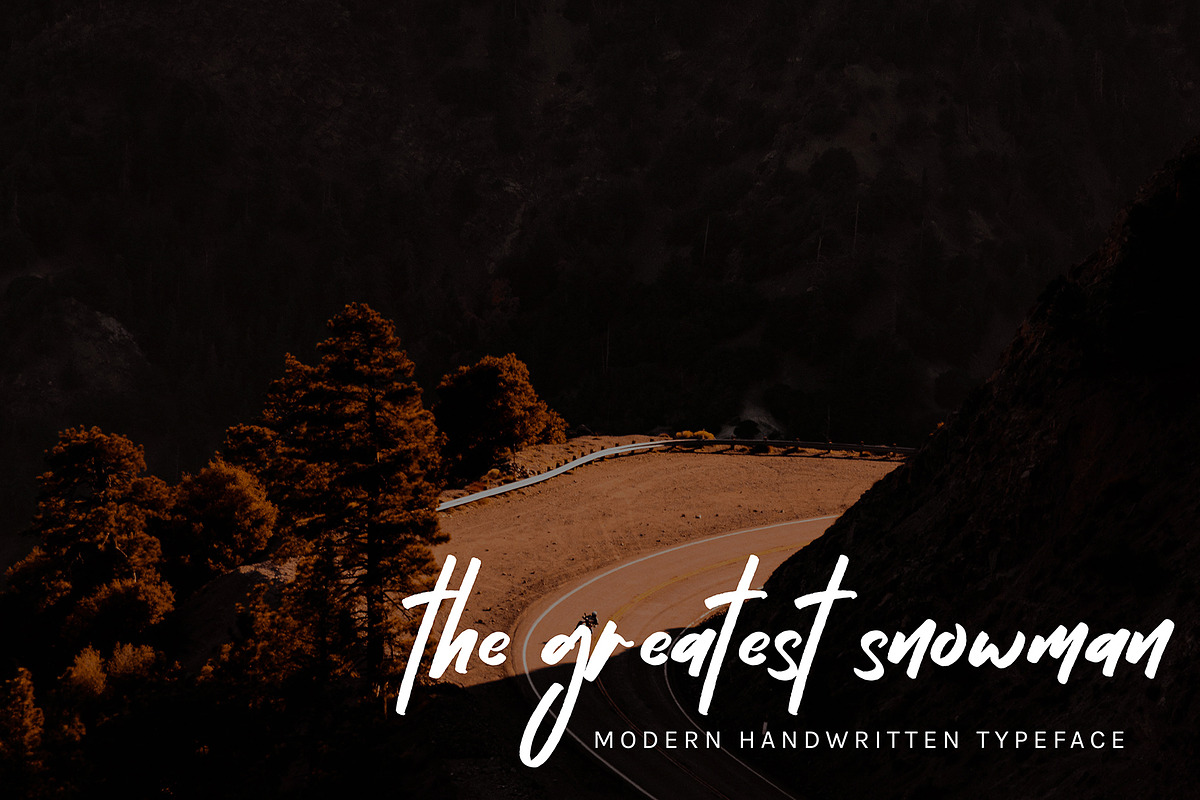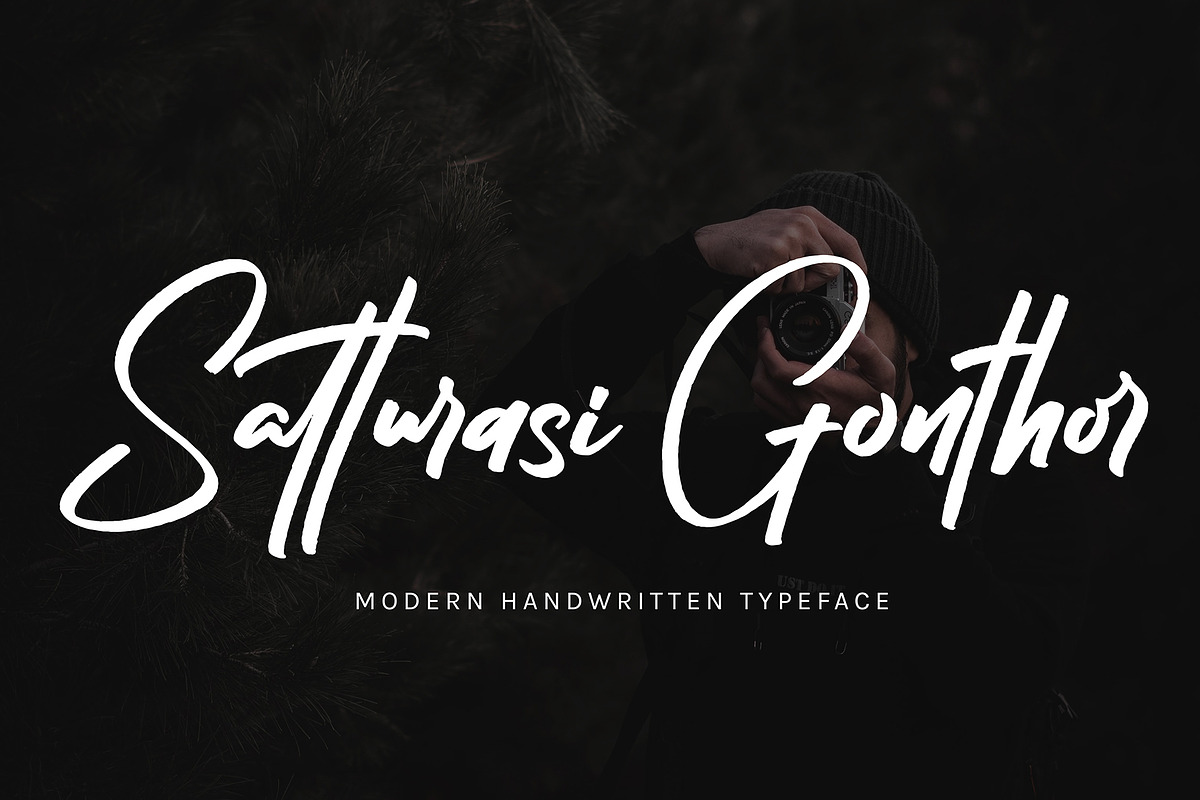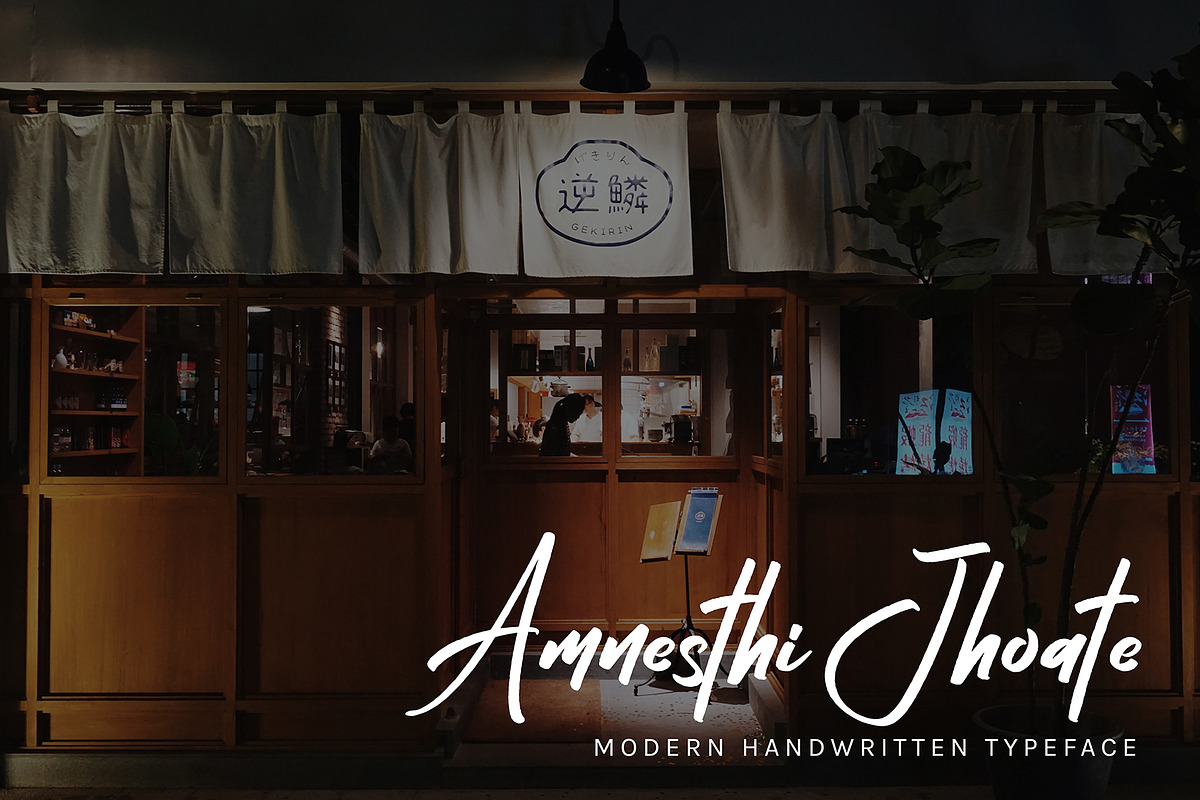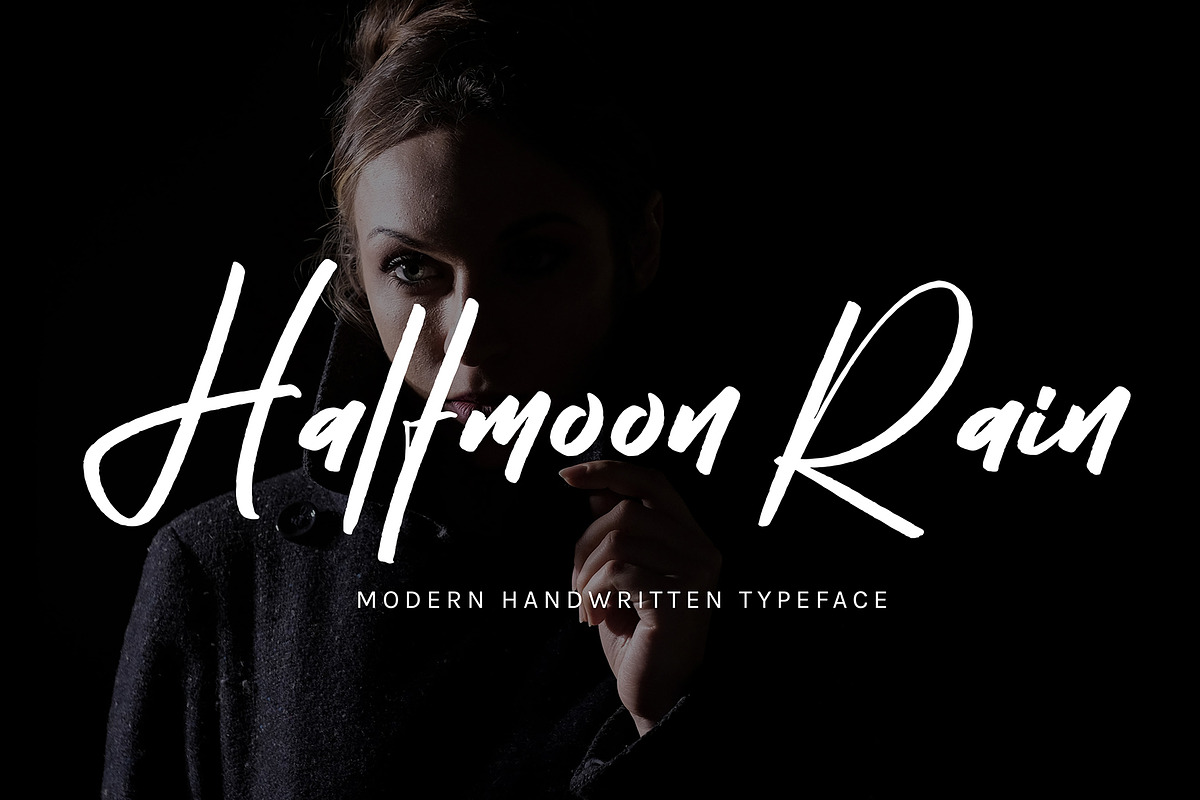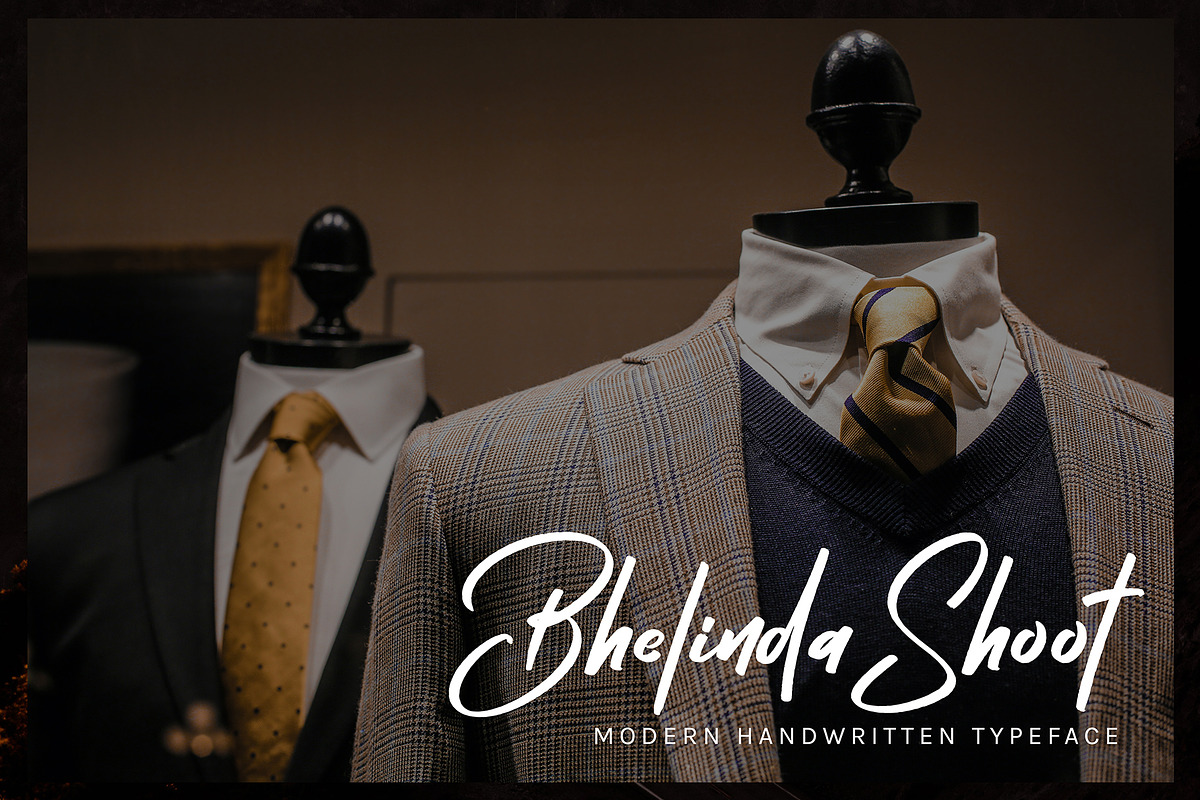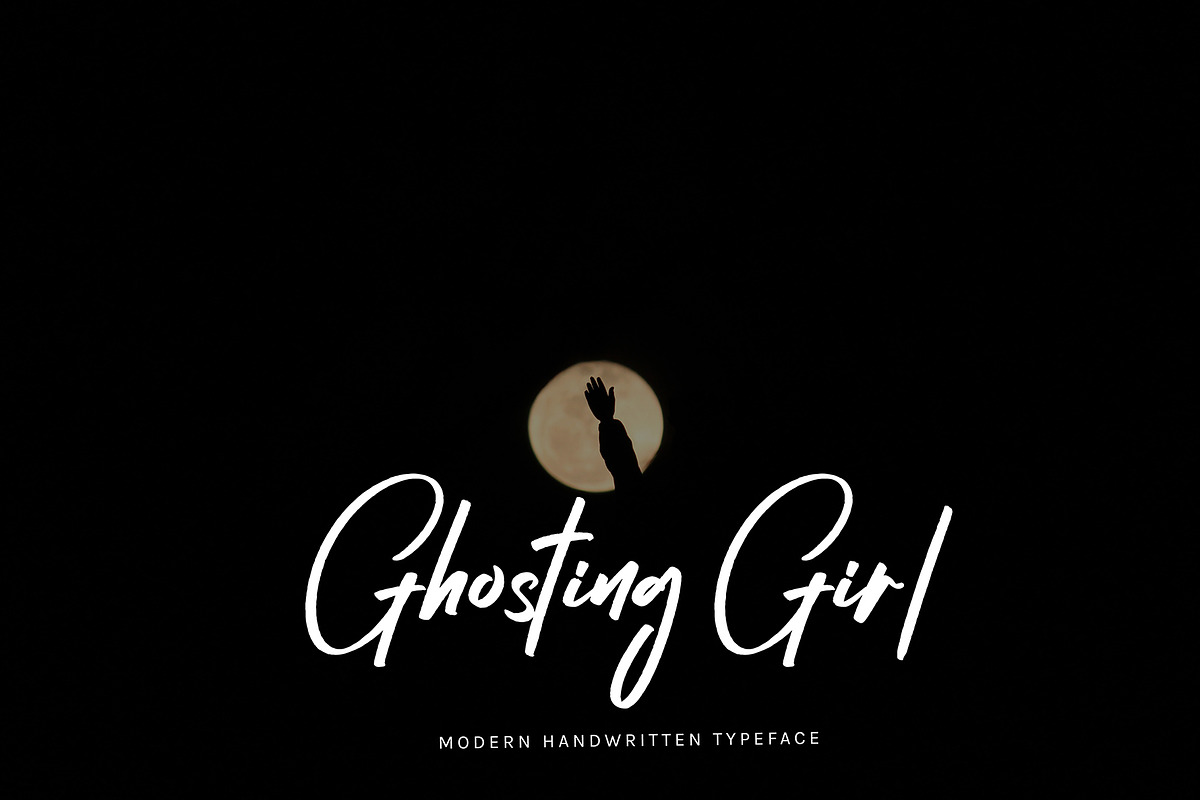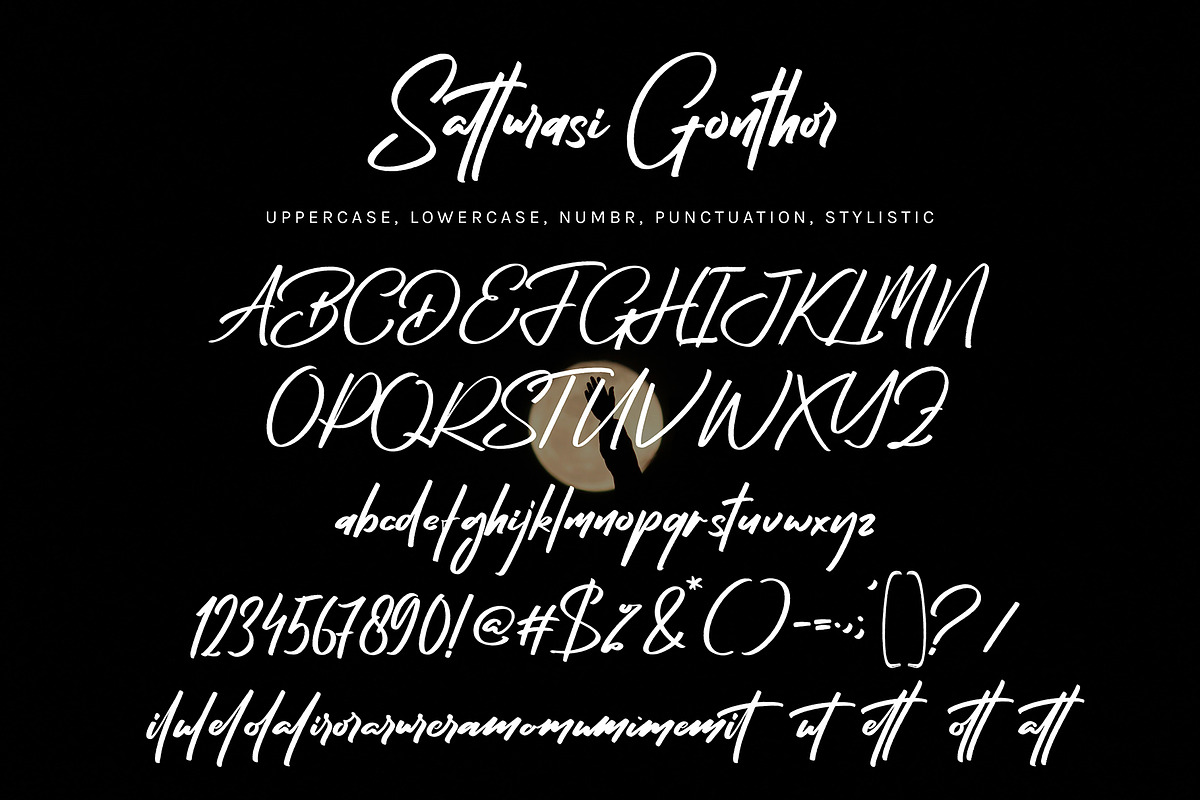
Satturasi Gonthor
Satturasi Gonthor font with new style, this font will perfect for many different project ex: quotes, logo, blog header, poster, banding, letter, invitation, stationery, etc...